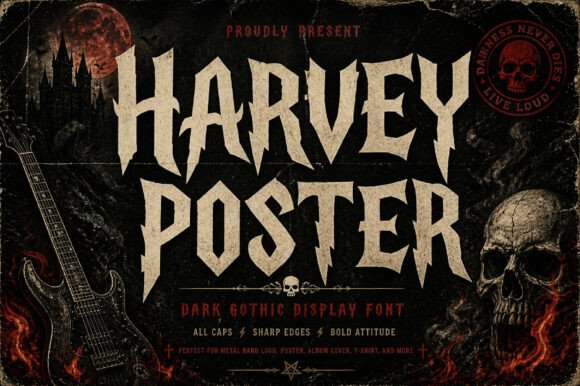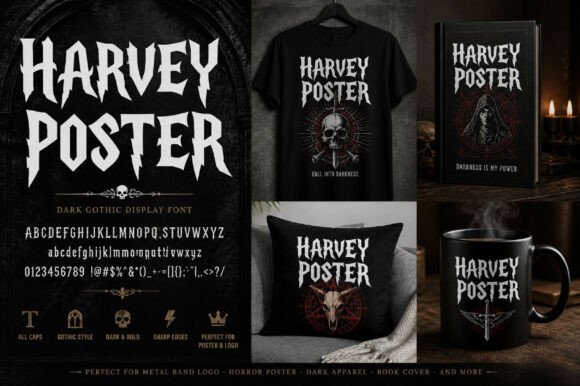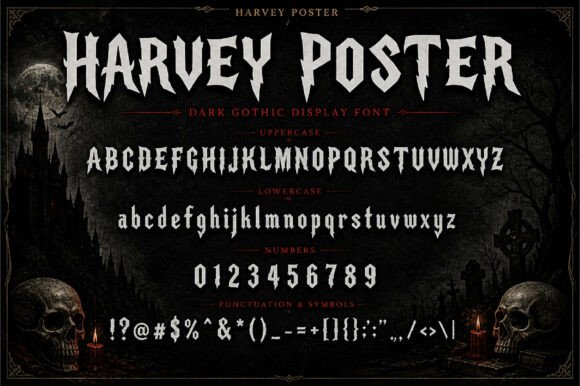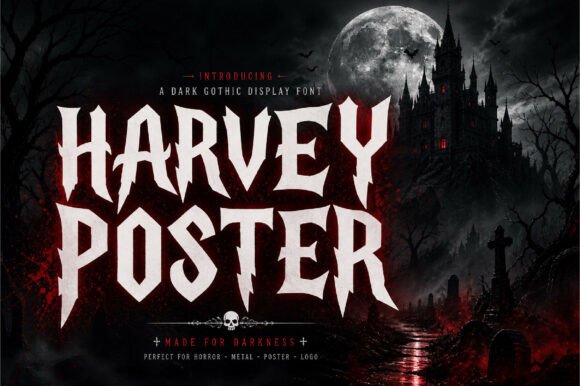
Unleash the Power of Harvey Poster Font: A Striking Gothic Display Font
In the world of typography, fonts play a crucial role in conveying the tone and personality of a design. For designers and crafters looking to make a bold statement, Harvey Poster Font is an exceptional choice. This striking gothic display font is designed to deliver a strong visual impact and bold personality, making it perfect for projects that require intensity and attitude.
Key Features of Harvey Poster Font
Harvey Poster Font boasts several key features that set it apart from other fonts. Its sharp angles, pointed edges, and aggressive letterforms create a dramatic and edgy look that instantly grabs attention. The font’s dark and powerful style makes it ideal for designers who want to add a touch of boldness and fierceness to their work.
One of the standout features of Harvey Poster Font is its unique blend of modern gothic and classic blackletter influences. The sharp structure gives it a modern feel, while the classic blackletter influence adds a sense of timelessness and sophistication. This blend of styles makes Harvey Poster Font versatile and suitable for a wide range of design applications.
Design Applications for Harvey Poster Font
Harvey Poster Font is perfect for designers who want to create striking and unforgettable designs. Its bold and edgy style makes it ideal for:
- Posters: Create eye-catching posters that grab attention and leave a lasting impression.
- Logos: Design bold and memorable logos that reflect the personality and values of your brand.
- Album Covers: Add a touch of intensity and attitude to your music designs with Harvey Poster Font.
- Event Graphics: Create striking event graphics that set the tone for a memorable experience.
- Merchandise: Design bold and eye-catching merchandise that stands out from the crowd.
- Branding Materials: Use Harvey Poster Font to create a consistent and bold visual identity for your brand.
Why Choose Harvey Poster Font?
There are many reasons why designers and crafters should choose Harvey Poster Font for their projects. Here are a few:
- Bold and Edgy Style: Harvey Poster Font is perfect for designers who want to add a touch of boldness and fierceness to their work.
- Versatility: The font’s unique blend of modern gothic and classic blackletter influences makes it suitable for a wide range of design applications.
- Suitable for Print and Digital Use: The font is optimized for both print and digital use, ensuring that it looks great in any medium.
Tips for Using Harvey Poster Font
To get the most out of Harvey Poster Font, here are a few tips:
- Use it Sparingly: Due to its bold and edgy style, Harvey Poster Font is best used sparingly to avoid overwhelming the design.
- Experiment with Colors: The font looks great in bold and bright colors, so don’t be afraid to experiment and find the perfect color scheme for your design.
- Pair it with Other Fonts: Harvey Poster Font pairs well with other fonts, so feel free to experiment and find the perfect combination for your design.
In conclusion, Harvey Poster Font is a striking gothic display font that is perfect for designers and crafters looking to add a touch of boldness and fierceness to their work. Its unique blend of modern gothic and classic blackletter influences makes it versatile and suitable for a wide range of design applications. With its bold and edgy style, Harvey Poster Font is sure to make a lasting impression and leave a bold statement.
Whether you’re designing posters, logos, album covers, event graphics, merchandise, or branding materials, Harvey Poster Font is an exceptional choice. So why wait? Unleash the power of Harvey Poster Font and take your designs to the next level!